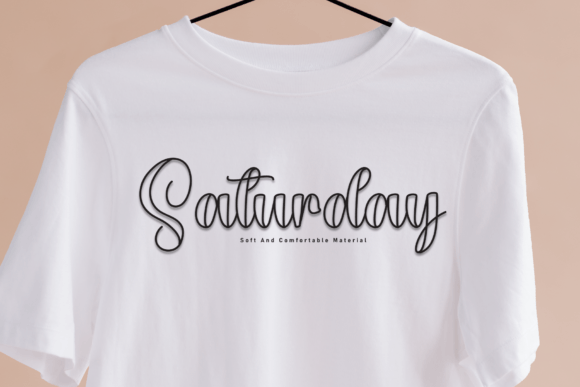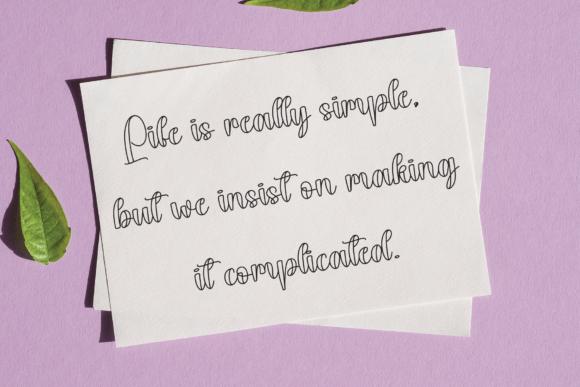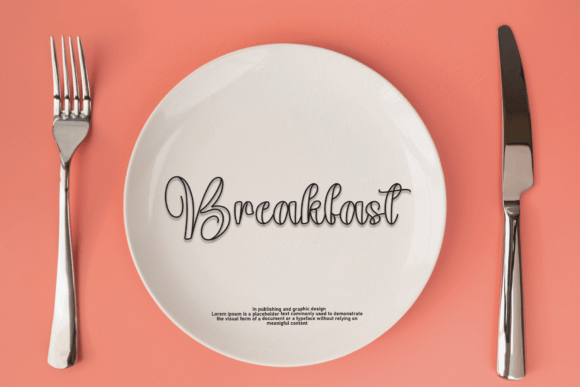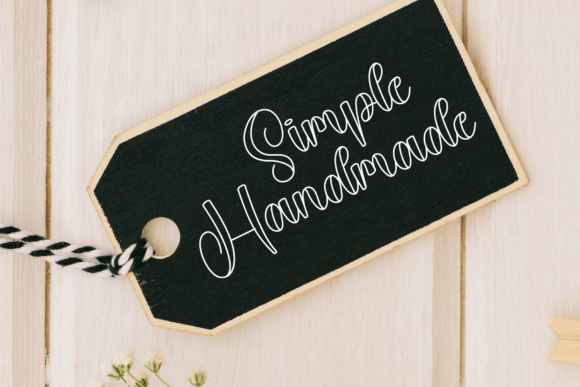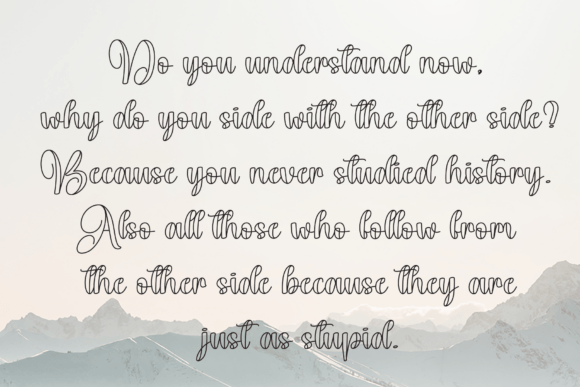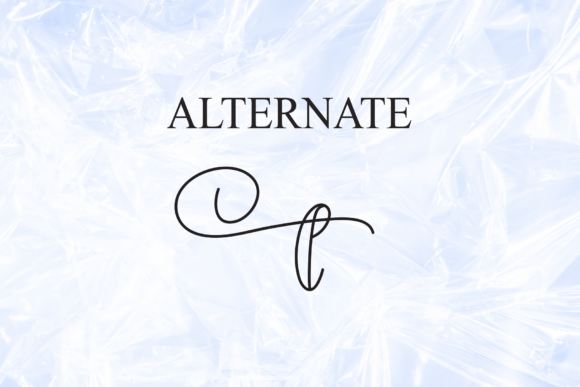
Introducing Crystalice Font: Elevate Your Designs with Elegance and Sophistication
In the world of typography, few fonts manage to capture the essence of elegance and sophistication as beautifully as Crystalice. This stunning script font is a masterpiece of design, perfect for crafters and designers looking to add a touch of luxury and refinement to their projects. Whether you’re working on wedding invitations, thank you cards, quotes, greeting cards, logos, business cards, or any other design that requires a handwritten touch, Crystalice is the perfect choice.
The Beauty of Crystalice
Crystalice is more than just a font; it’s an experience. Its stylish and incredibly elegant design makes it stand out from the crowd, adding a level of sophistication to any project. The fluid, cursive lines and delicate strokes of Crystalice evoke a sense of luxury and refinement, making it ideal for designs that require a high level of elegance.
One of the key benefits of Crystalice is its versatility. This font is not limited to a specific type of project; rather, it can be used across a wide range of designs, including:
- Wedding Invitations: Add a touch of romance and elegance to your wedding invitations with Crystalice. Its beautiful script design sets the tone for a sophisticated and memorable event.
- Thank You Cards: Express your gratitude in style with Crystalice. This font adds a level of elegance to any thank you card, making it perfect for personal and professional use.
- Quotes: Make your quotes stand out with Crystalice. This font is designed to add emphasis and beauty to your words, making them more impactful and memorable.
- Greeting Cards: Whether it’s a birthday, anniversary, or holiday greeting, Crystalice adds a touch of elegance and sophistication to any card.
- Logos: Create a lasting impression with Crystalice. This font is perfect for logos that require a level of sophistication and elegance.
- Business Cards: Stand out in the business world with Crystalice. This font adds a level of refinement and professionalism to any business card.
Why Choose Crystalice?
There are many fonts available for designers and crafters, but Crystalice stands out for several reasons:
- Unique Design: Crystalice boasts a unique design that is both stylish and elegant. Its fluid lines and delicate strokes make it a cut above the rest.
- Versatility: This font can be used across a wide range of projects, making it a valuable addition to any designer’s toolkit.
- High-Quality: This font is of the highest quality, ensuring that your designs look professional and polished.
Tips for Using Crystalice
To get the most out of Crystalice, here are a few tips:
- Pair with Complementary Fonts: Crystalice pairs well with a variety of fonts. Experiment with different combinations to find the perfect match for your design.
- Adjust Size and Color: Don’t be afraid to experiment with different sizes and colors to find the perfect look for your design.
- Use in Combination with Images: Crystalice looks stunning when used in combination with images. Experiment with different layouts to find the perfect balance.
Crystalice is a stylish and incredibly elegant script font that is perfect for designers and crafters looking to add a touch of luxury and refinement to their projects. Its versatility, unique design, and ease of use make it a valuable addition to any designer’s toolkit. Whether you’re working on wedding invitations, thank you cards, quotes, greeting cards, logos, business cards, or any other design that requires a handwritten touch, Crystalice is the perfect choice. Elevate your designs with elegance and sophistication; choose Crystalice today.